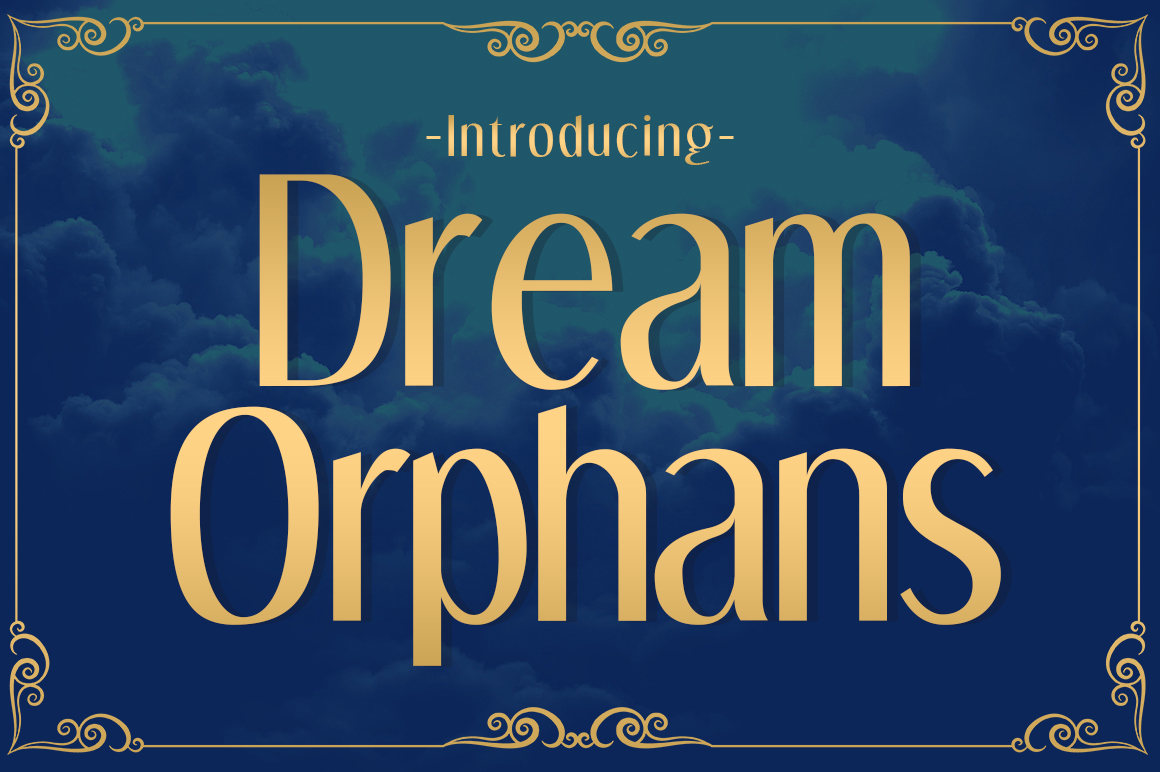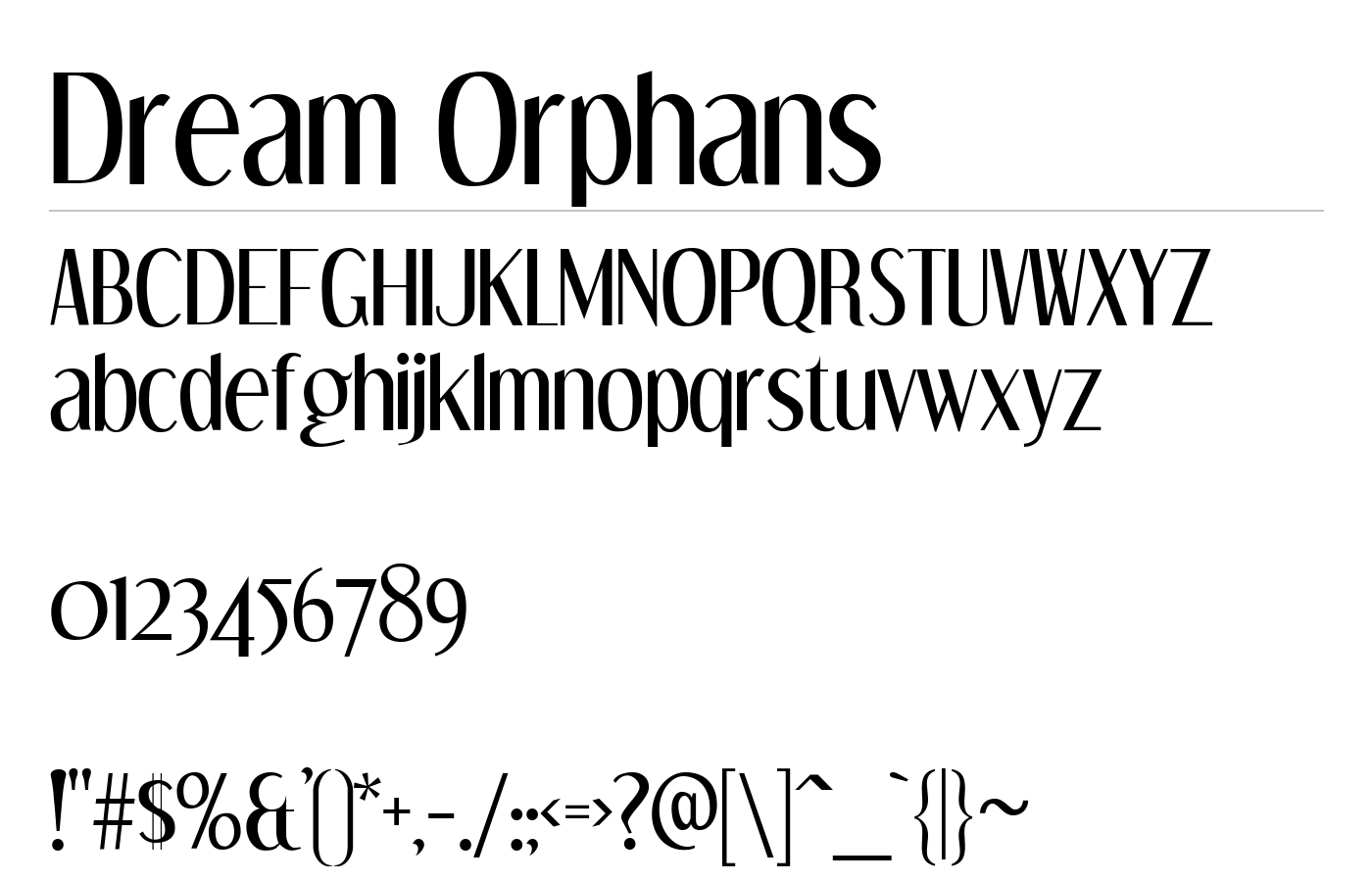
Dream Orphans
Dream Orphans is a condensed, humanist sans serif display font. The quaggy curves are charming, as this font adds a classic and literary appeal to designs. Get this free font from Typodermic!Β If you like it donβt forget to check out the full version.